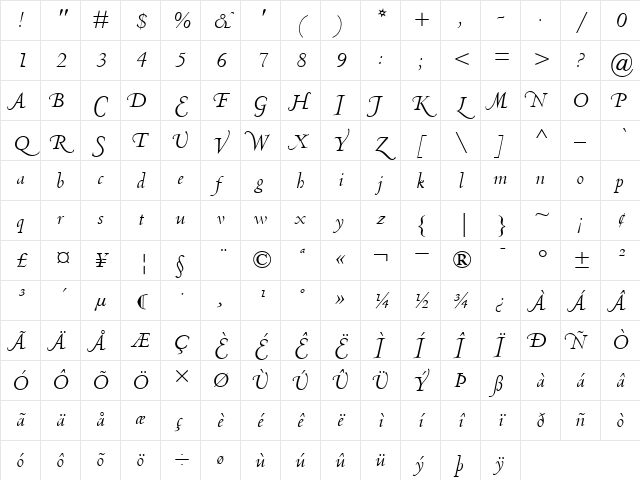
CentaurMTSwashCapitals RomanItalic
Style: RomanItalic
Design Context for CentaurMTSwashCapitals
CentaurMTSwashCapitals flows with the natural rhythm of handwritten lettering, making it ideal for designs that call for warmth and personal expression.
Font Pairing: Combine CentaurMTSwashCapitals with a simple geometric sans for maximum contrast - the tension between flowing curves and clean structure is a classic typographic pairing.
Pro Tip: Use CentaurMTSwashCapitals for short runs of text - names, titles, or taglines. Extended body copy in script faces tires the eye quickly.